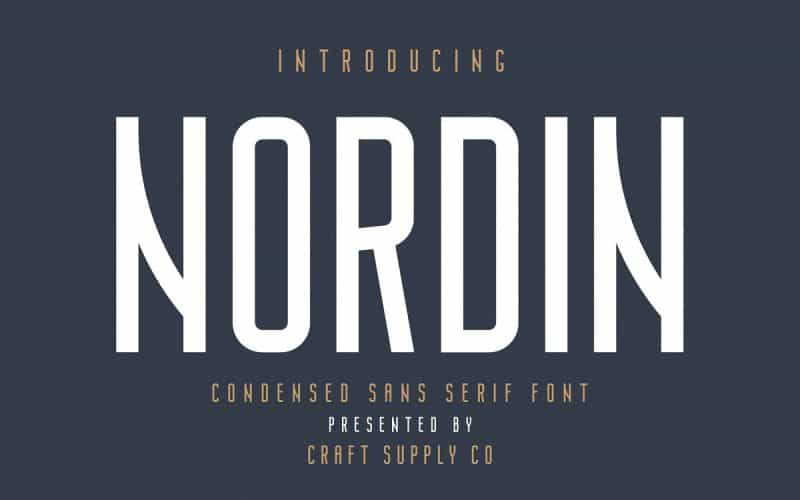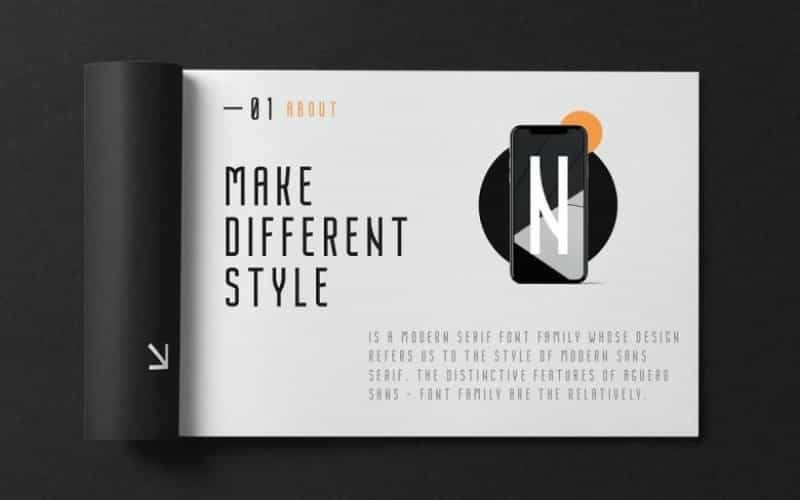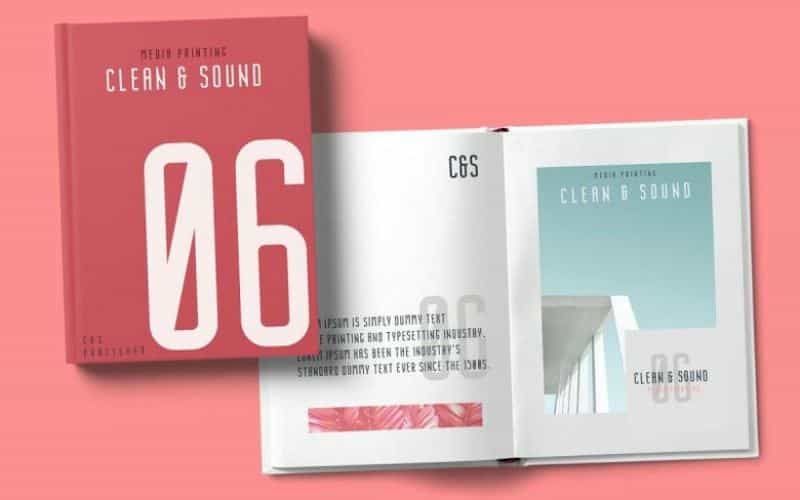
Discover Nordin Condensed Sans Font, part of the Sans Serif collection—a versatile and unique font perfect for adding a personal touch to your projects. Download it for free and enjoy crafting designs with style, from invitations to social media posts. This font is available exclusively for personal use, giving you the freedom to create without limits. Unlock your creativity with Nordin Condensed Sans Font today!
Nordin – Condensed Sans Serif is a Compact and Neat sans serif with strong font files. It is a font that is based on the compact solid font, by mixing different styles. Adaptable to Logo, greeting cards, quotes, posters, branding, name card, stationary, design title, blog header, art quote, typography.